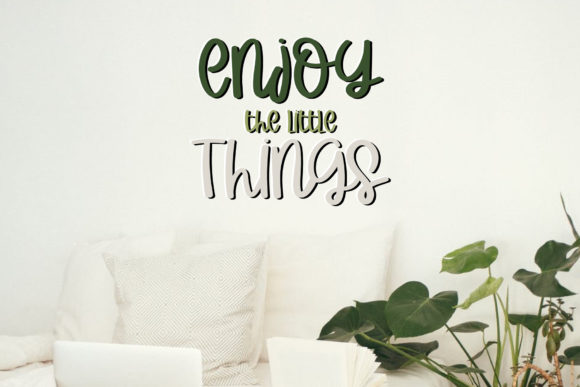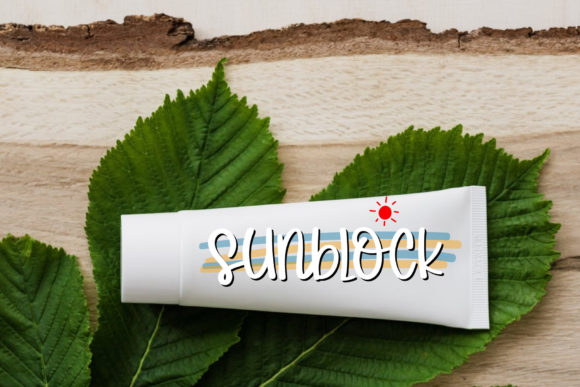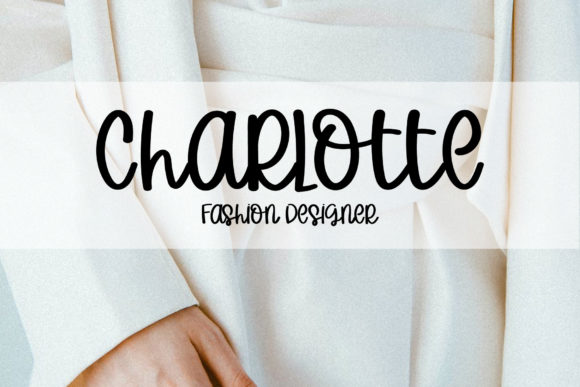
Introduction to Smooth Skin Font
Have you ever found yourself stuck on a design project, yearning for that perfect handwritten font to bring it to life? I know I have. It’s that moment when the perfect font can make all the difference between a decent design and a truly unforgettable one. That’s why I’m excited to share with you the Smooth Skin Font, a cozy and solemn handwritten font that’s sure to elevate your next creative project.
As a designer, you know the importance of having a reliable design resource at your disposal. That’s why Smooth Skin Font is a valuable addition to any design arsenal. With its smooth, high-quality lines, it’s perfect for everything from luxury branding to wedding invitations. And the best part? It’s available for free download, complete with a transparent background, making it easy to integrate into your design.
- High-quality, vector-based font design, suitable for creative projects
- Smooth, rounded edges and shapes for a modern and sleek aesthetic
- Transparent background, allowing for easy integration with various design elements
- Designed to work at high resolutions, ensuring crisp and clear text display
- Perfect for use in logos, icons, graphics, and other design elements requiring a smooth, skin-like texture
Honest Review: Smooth Skin Font
As a designer, I’m always on the lookout for high-quality design resources to enhance my creative projects. The Smooth Skin Font caught my eye, and I decided to give it a try.
- Smooth Skin Font offers a beautiful, modern design that’s perfect for any project.
- The transparent background allows for seamless integration into any design project.
- It’s a versatile font that works well for both print and digital designs.
- The font is only available in a limited number of weights and styles.
- It may not be the best choice for projects that require a lot of emphasis on bold typography.
Overall, I’m impressed with the Smooth Skin Font. While it may have some limitations, it’s a great addition to any designer’s arsenal. It’s perfect for those looking for a high-quality, modern font for their creative projects.
Smooth Skin Font is commonly used in designs for beauty and wellness products, fashion brands, and luxury goods. It’s also great for creating invitations, menus, and other materials that require a high-end look.
The Pixel Perfect Font is a high-quality design resource ideal for creative projects that require a clean and minimalist aesthetic. It features a transparent background, making it perfect for use on any background color or design element. When to use: Web design, mobile app design, or any project where a simple, elegant font is required. Comparison to Smooth Skin Font: Pixel Perfect Font is more geometric and modern, whereas Smooth Skin Font has a softer, more rounded feel.
The Modern Sans Font is a versatile design resource that can be used in a variety of creative projects, from logos to brochures. It features a clean and simple design, making it perfect for use on a transparent background. When to use: Brochures, flyers, business cards, or any project where a modern and sleek font is required. Comparison to Smooth Skin Font: Modern Sans Font is more angular and modern, whereas Smooth Skin Font has a softer, more rounded feel.
The Clean Line Font is a high-quality design resource ideal for creative projects that require a clean and elegant aesthetic. It features a transparent background, making it perfect for use on any background color or design element. When to use: Web design, graphic design, or any project where a simple and elegant font is required. Comparison to Smooth Skin Font: Clean Line Font is more minimalist and modern, whereas Smooth Skin Font has a softer, more rounded feel.